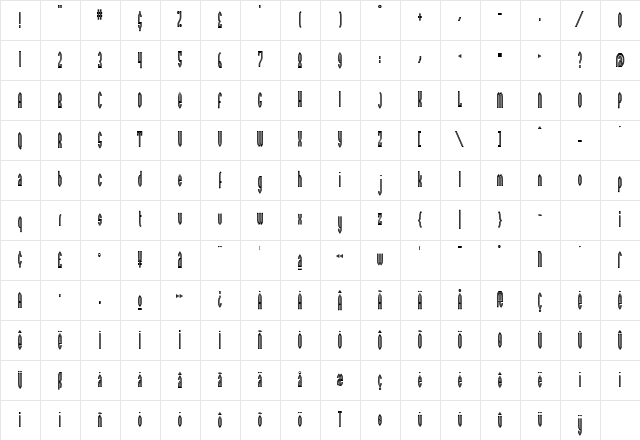
Bromide Medium Free Font
Bromide Medium
Design Context for Bromide
Bromide is a composed and adaptable typeface that performs quietly and consistently across a wide range of design contexts.